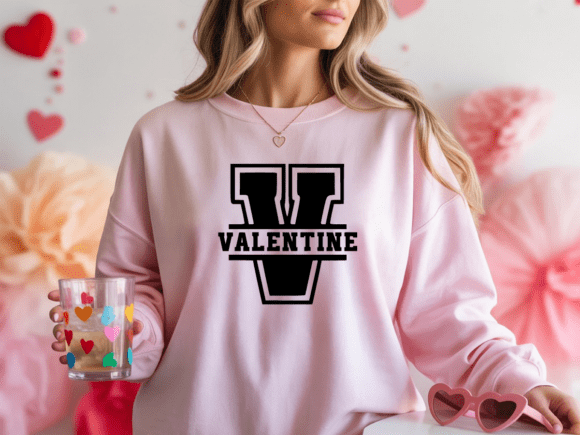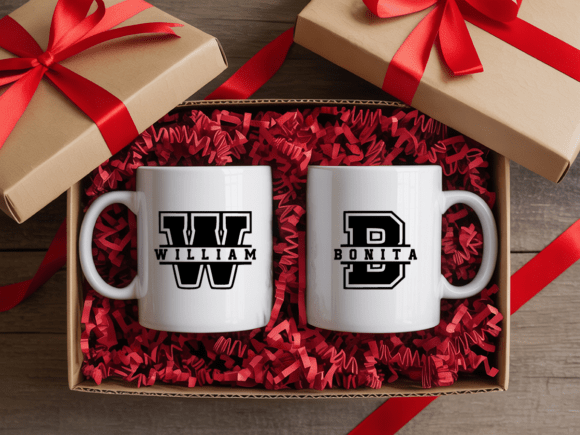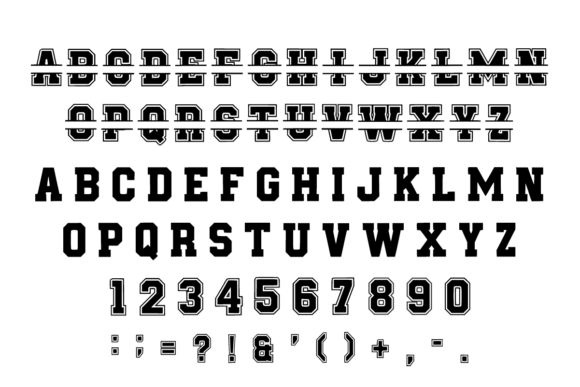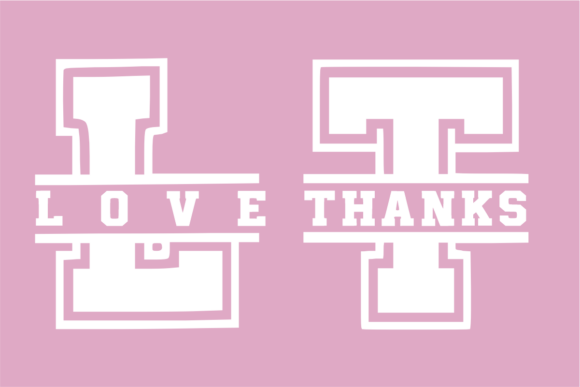
Introduction to Monogram Slab Serif Font Font
Fonts play a crucial role in design, and the Monogram Slab Serif Font font is a typeface that brings both character and versatility to any project. Whether you’re working on a branding project, a website, or a print design, the Monogram Slab Serif Font font offers a unique style that can elevate your work.
β¨ Personalize with Style: Monogram Slab Serif β The Ultimate Customization Font.
β¨ Elevate your branding and personalized gifts with Monogram Slab Serif This classic, collegiate-style font features a bold slab serif aesthetic with a professional βSplit Monogramβ design.
Key Features of Monogram Slab Serif Font Font
Why Choose Monogram Slab Serif Font Font?
The Monogram Slab Serif Font font is more than just a typeface β it’s a design tool that helps you communicate your message with style and clarity. Its unique character set and versatile design make it suitable for a wide range of applications, from elegant invitations to bold headlines.
With its carefully crafted letterforms and balanced proportions, the Monogram Slab Serif Font font ensures readability and visual appeal across all mediums.
What makes Monogram Slab Serif Font font special?
The Monogram Slab Serif Font font stands out with its unique design, exceptional readability, and versatility across various design applications.